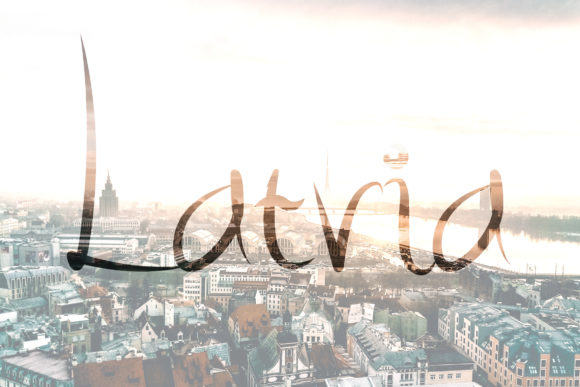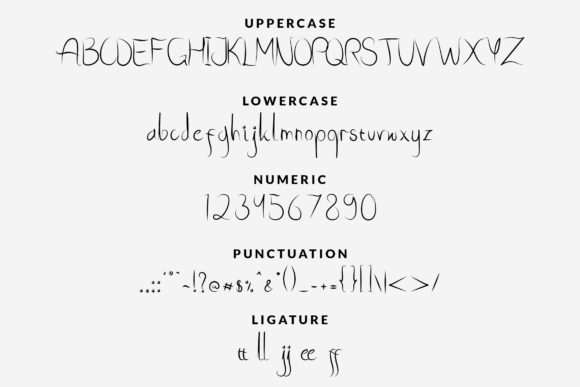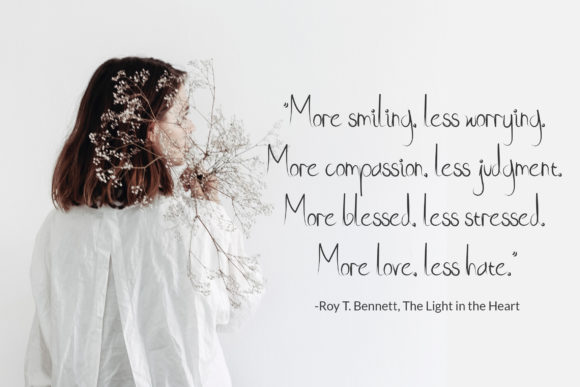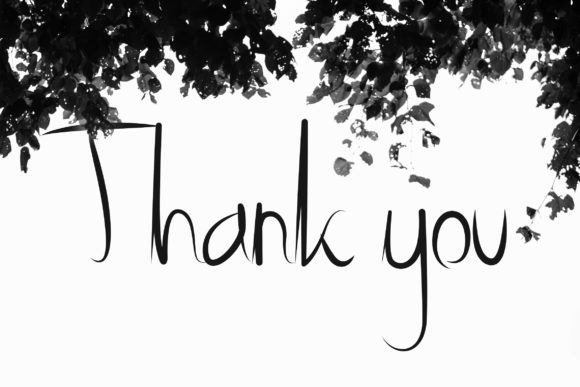
HomeScript FontsRyna Font Script Fonts Ryna Font FacebookXPinterestWhatsApp Ryna Font Poster 2 Ryna Font Poster 3 Ryna Font Poster 4 Ryna Font Poster 5 About Ryna Font Ryna is a stunning font that effortlessly combines elegance, sweetness, and smoothness. DOWNLOAD ON CREATIVE FABRICAThis font is sold and delivered by Creative Fabrica. Font Canyon may earn a commission if you buy through this link. People also explored Break Dona Angelisa Font The Dark Titan Font Mod Monograms Royken Font ZP Love Branch Font Michelle Font Heart You Font Twinkle Magic Font 278 0 TagsRyna Font Previous articleBlacknight FontNext articleSholaria Font LEAVE A REPLY Cancel reply Comment: Please enter your comment! Name:* Please enter your name here Email:* You have entered an incorrect email address! Please enter your email address here Website: Save my name, email, and website in this browser for the next time I comment. Personal Use Free Brandon Bromley Personal Use Free Read more about this font Foolish Hand Personal Use Free Read more about this font Good Times Personal Use Free Read more about this font Makeba Font Personal Use Free Read more about this font BLOG Free vs Paid Fonts: Why Investing in Premium Fonts Is Worth It Free vs Paid Fonts: Why Premium Fonts Are Worth It in 2025 The debate of free vs paid fonts continues in the design world. While... The 10 Best Handwriting Fonts to Add Personality to Your Designs Free Fonts Risk: Why Free Fonts Can Be Dangerous for Designers Best Fonts for YouTube Videos: Make Your Thumbnails Stand Out